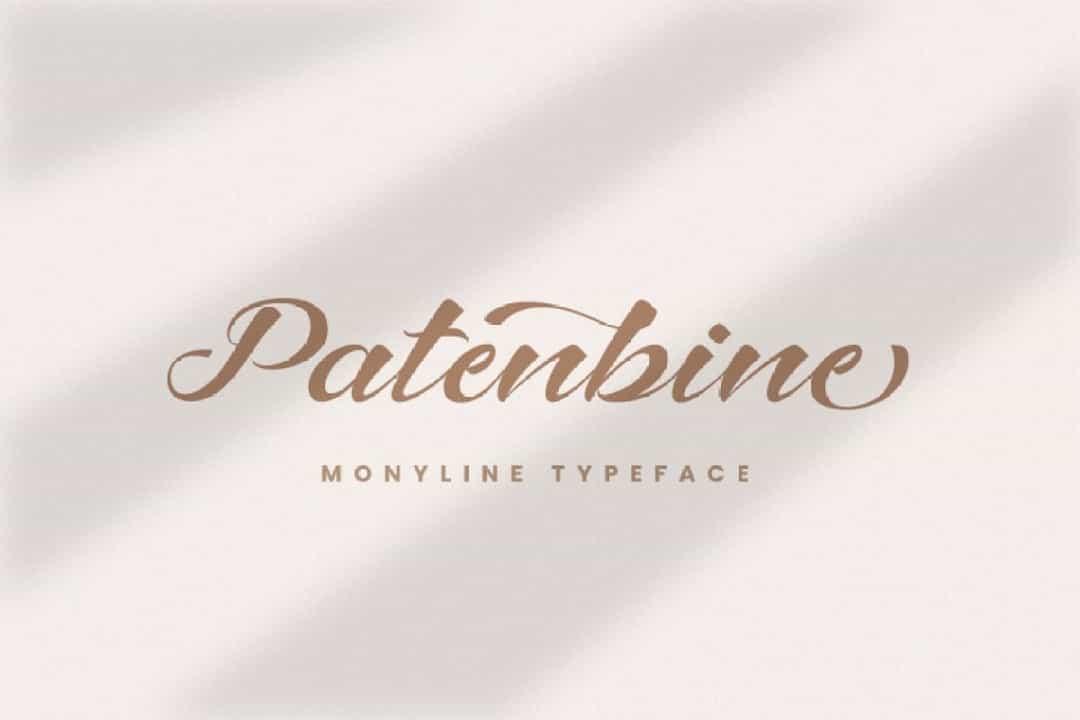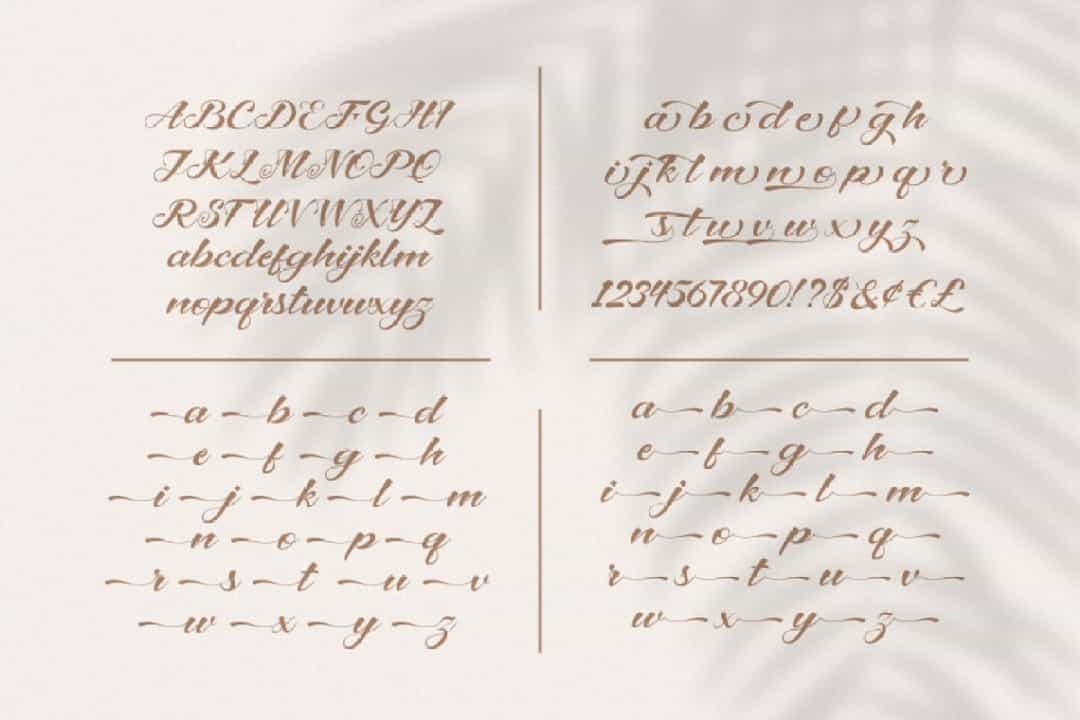
Monyline is an elegant, delicate, and fluid handwritten font. With perfectly proportioned characters that create well-balanced words and letters, it fits beautifully into many designs. Being PUA encoded allows Monyline to access its glyphs as well as swashes effortlessly!